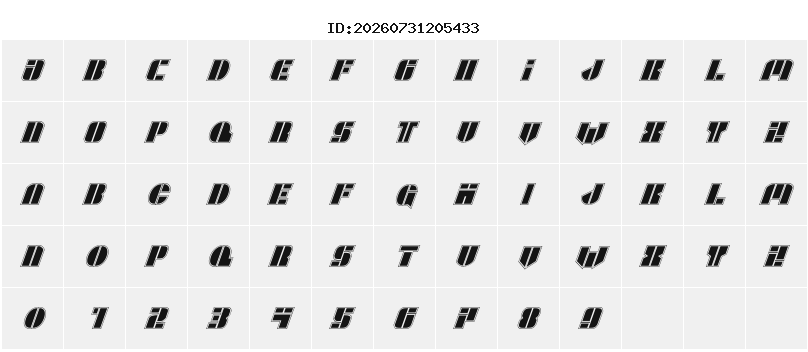
• Font Name: League Wars Academy Italic
• Full Font Name: League Wars Academy Italic
About League Wars Academy Italic.ttf
League Wars Academy Italic.ttf is a modern, elegant sans-serif font designed for ultimate readability and visual harmony. Perfect for branding, headlines, web design, and print materials.